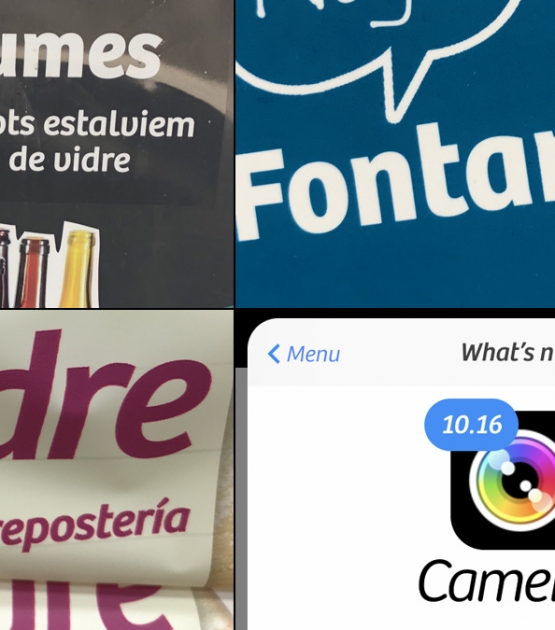
Bree Greek
Designed by José Scaglione Veronika Burian Irene Vlachou . Released 2019.
Bree is a spry sans serif that delivers a spirited look and feel for branding and headline usage. As an upright italic, Bree shows a pleasant mix of rather unobtrusive capitals with more vivid lowercase letters, giving text a lively appearance. Bree is clearly influenced by handwriting with a touch of cheekiness, which equals a big personality. The full bundle includes variable fonts.
Awards and mentions:
• 2008 Tipos Latinos exhibition
• Appeared on several 2008 “Best Of” Lists
• 2009 Bronze Award, European Design Festival
• Special mention at 2019 GRANSHAN competition
The Backstory
Bree Greek
A Greek upright italic, influenced by handwriting and confidently extending the Bree family.
The Bree Greek font family is a spry sans serif initiated by Veronika Burian and José Scaglione and completed by Irene Vlachou.
Bree Greek delivers a spirited look and feel for branding and headline usage. As an upright italic, Bree Greek shows a pleasant mix of rather unobtrusive capitals with more vivid lowercase letters, giving text a lively appearance. Bree Greek is clearly influenced by handwriting. As such, some of its most characteristic features are the cursive epsilon, the outstroke curves of diagonals, and its flourished and fluid shapes. Alternates of these letters are available when a more neutral look is desired. Bree Greek has a touch of cheekiness, a wide stance for each character, and an extra-large x-height. All this adds up to a big personality, so even when set in small text there is no skimming past the words Bree Greek voices.
In 2019, the Bree font family got a huge update. A few shapes were updated or added (the ‘k’ and German capital ‘ß’), two entirely new weights were added (Book and Book Italic), and spacing was perfected. More than that, Vietnamese support was added to Bree Latin, and the Bree Greek and Bree Cyrillic scripts were designed from scratch to parallel the Latin’s tone. Additionally, Bree was designed in variable font format for those who want complete control over the font’s appearance while simultaneously saving digital weight in the form of kilobytes and megabytes. The entire Bree family is in the perfect position for the next digital revolution.
The complete seven weight Bree Thai font family, along with our entire catalogue, has been optimised for today’s varied screen uses. Bree has been chosen for such wide-ranging uses as the branding for the country of Peru, Breast Cancer Awareness Month in the US, organic food brands, and numerous layouts including mobile apps, newspapers, online magazines, and books. Be sure to check out the other scripts in the full multiscript Bree family: Arabic, Latin (including Pinyin and Vietnamese), Cyrillic, and Greek.